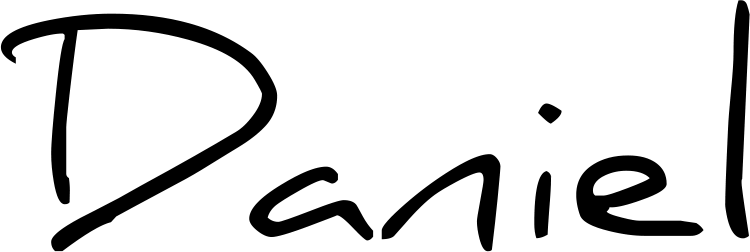
Daniel Font
Want to give off friendly and playful vibes in your content, and entice many audiences to your writing design, never neglect a handwritten font especially Daniel with its different versions. This can bring you satisfactory results, highlight your texts, and call attention to any design of flyers, posters, greeting cards, brands, clothing, and anything else.